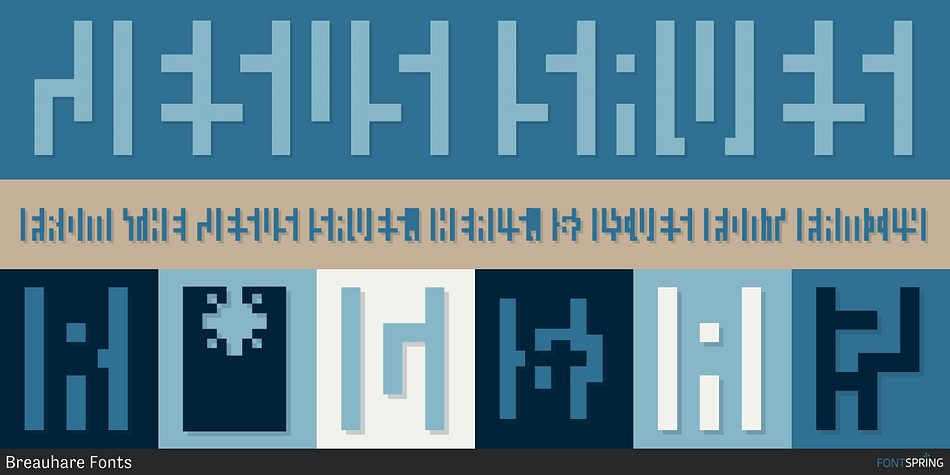
JESUS SAVES
Designed by Harry Warren, Jesus Saves, Heals, & Lives is a pixel font family. This typeface has three styles and was published by Breauhare Fonts.
Jesus Saves is a font based on the familiar old logo that has “JESUS” hidden within a maze-like set of multi-branched vertical bars.
The characters appear to be an alien, cryptic language at first sight, perhaps even a Japanese, Chinese, or Korean language, thanks to the unusual figures created by the combinations of various letters. It is a teaser for the eyes, as well as a visual feast of De Stijl-type art.
It is an attention-getting font that is cool to look at, an eye puzzle that is enticing to decipher. It’s a great font to use for striking logos (see Gallery Images) by the judicious use of ligatures, where in word settings ligatures may be used at the beginnings of words, the middle or the endings of words.
Jesus Heals is the missing spaces from the Jesus Saves font, sort of like a doughnut hole font! If you use this font to fill in the spaces in the Jesus Saves font, it becomes whole, or healed, thus the name.
Jesus Lives is a raised block/3D or three dimensional version of Jesus Heals. For color combinations in apps that support layering, Jesus Lives synchs and has perfect kerning register with Jesus Heals, as Jesus Heals has with Jesus Saves.
The digitization was done by fontmeister John Bomparte.